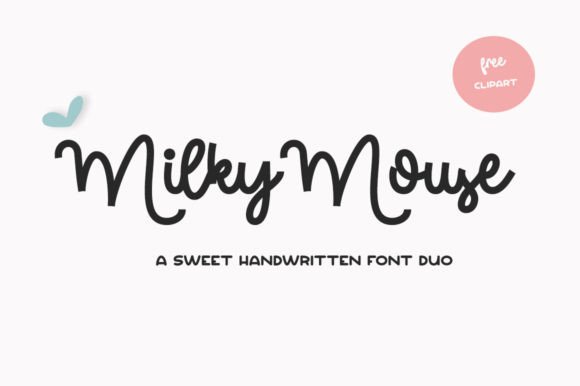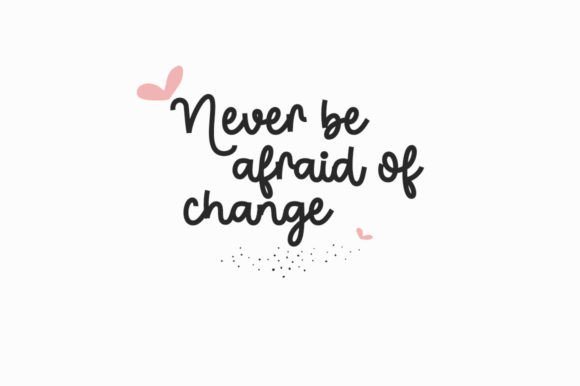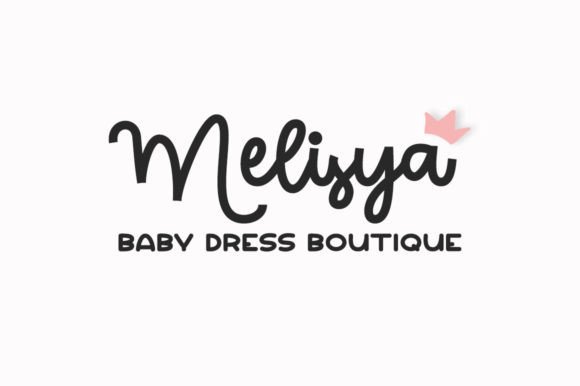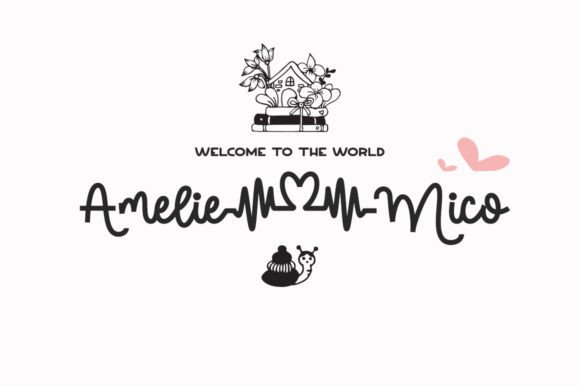
Milky Mouse Font: Cute Handwritten Script & Display for Cricut Crafts
About the Milky Mouse Font
Let us introduce you to Milky Mouse Font, where timeless design meets modern craftsmanship. Milky Mouse is a versatile duo font (script and display). It will add a unique fun spark to any design project that you wish to create! This font is PUA encoded which means you can access all of the amazing glyphs and ligatures with ease!
Milky Mouse’s playful script and bold display faces work exceptionally well in projects requiring a touch of whimsical charm. Ideal applications include children’s books, branding for sweet treats or toy companies, and playful social media graphics. It shines in headlines, short taglines, and logos, but its decorative nature makes it less suitable for body text or lengthy paragraphs.
Consider pairing the script with a clean sans-serif like Open Sans for a balanced contrast, or a geometric sans-serif like Futura for a more modern feel. The display font pairs well with a classic serif like Garamond for a touch of sophistication or a playful handwritten font for a consistent whimsical aesthetic.
Milky Mouse’s overall personality is undeniably cheerful and friendly, making it perfect for brands seeking to project approachability and fun. Avoid using it in contexts demanding seriousness or professionalism.